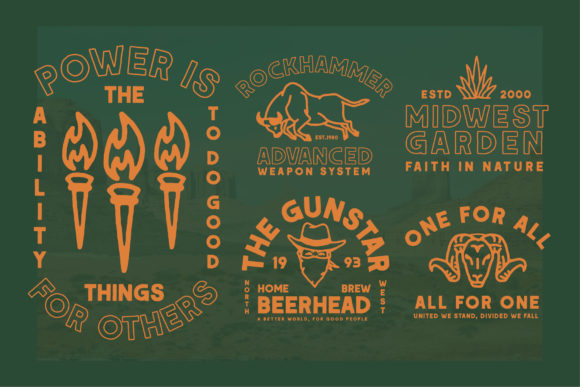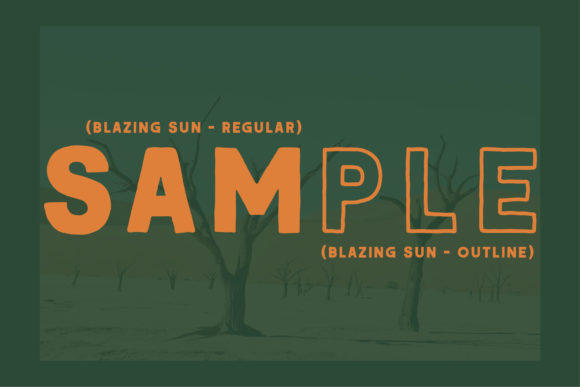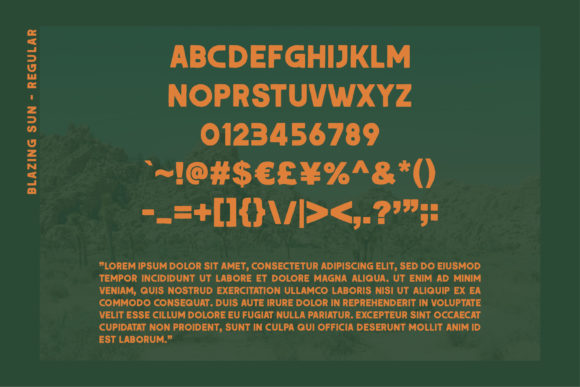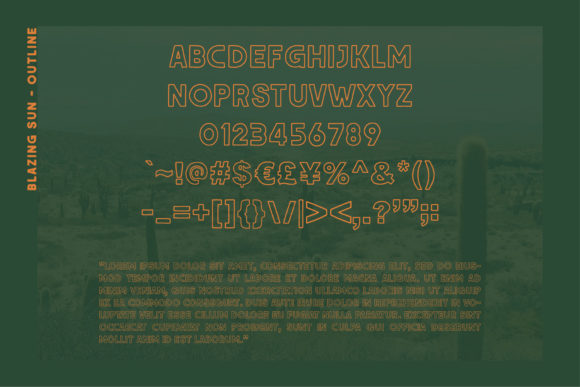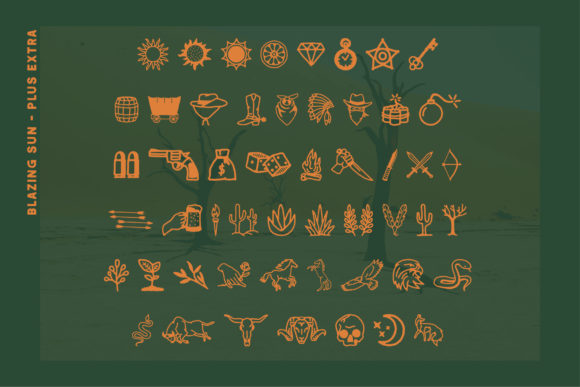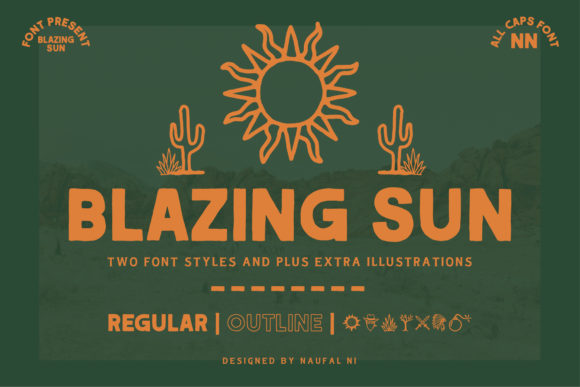
Introducing Blazing Sun Font: The Ultimate Vintage Sans Serif for Designers and Crafters
Are you tired of using the same old fonts for your design projects? Look no further! Blazing Sun Font is here to add a touch of vintage charm to your logos, packaging, posters, and more. This stunning sans serif font is inspired by the classic typography of the Wild West, making it perfect for designers and crafters who want to add a rustic, nostalgic feel to their work.
What is Blazing Sun Font?
Blazing Sun Font is a vintage sans serif font that is reminiscent of the classic typography found in old western movies, posters, and advertisements. Its unique design features clean lines, bold shapes, and a distinctive character that is sure to grab attention. Whether you’re designing a logo, creating a poster, or crafting a brand identity, Blazing Sun Font is the perfect choice.
Key Features of Blazing Sun Font
• Vintage Sans Serif Design: Blazing Sun Font features a classic sans serif design that is perfect for creating a nostalgic, retro look.
• Perfect for Logos and Branding: The font’s bold, distinctive shape makes it ideal for creating memorable logos and brand identities.
• More than 50 Desert and Cowboy Life Illustrations: The font comes with an incredible set of illustrations that will add an extra layer of authenticity to your designs.
How to Use Blazing Sun Font
Blazing Sun Font is incredibly versatile and can be used for a wide range of design projects, including:
• Logos and Branding: Use Blazing Sun Font to create a memorable logo or brand identity that will stand out from the crowd.
• Posters and Flyers: Add a touch of vintage charm to your posters and flyers with Blazing Sun Font.
• Packaging Design: Use the font to create eye-catching packaging that will make your product stand out on store shelves.
• Crafting and Scrapbooking: Blazing Sun Font is perfect for crafters and scrapbookers who want to add a personal touch to their projects.
The Benefits of Using Blazing Sun Font
So why choose Blazing Sun Font for your design projects? Here are just a few benefits:
• Unique and Distinctive: Blazing Sun Font is a one-of-a-kind font that will add a touch of personality to your designs.
• Easy to Read: The font’s clean lines and bold shapes make it easy to read, even at small sizes.
• Versatile: Blazing Sun Font can be used for a wide range of design projects, from logos and branding to posters and packaging.
• High-Quality Illustrations: The font comes with an incredible set of illustrations that will add an extra layer of authenticity to your designs.